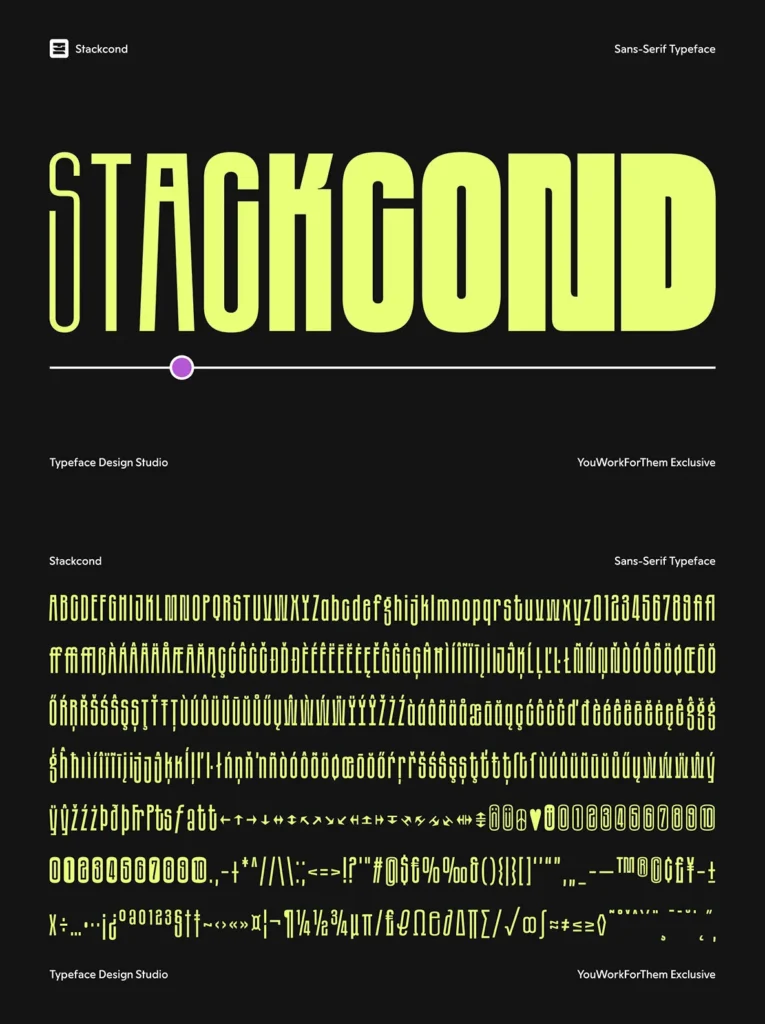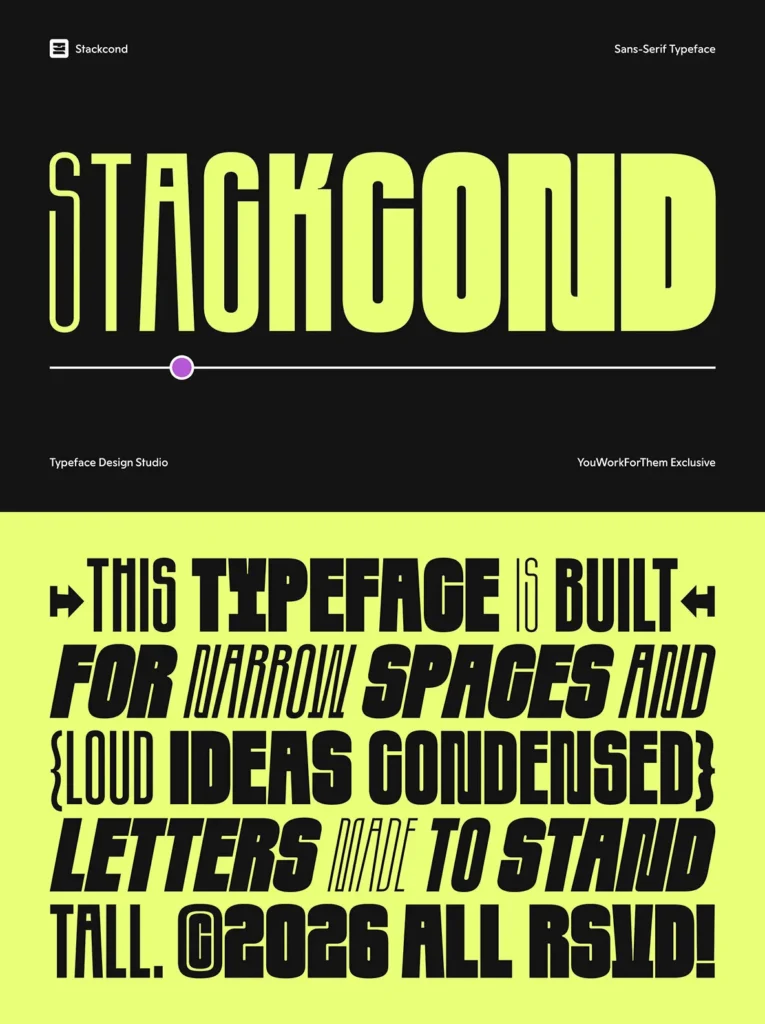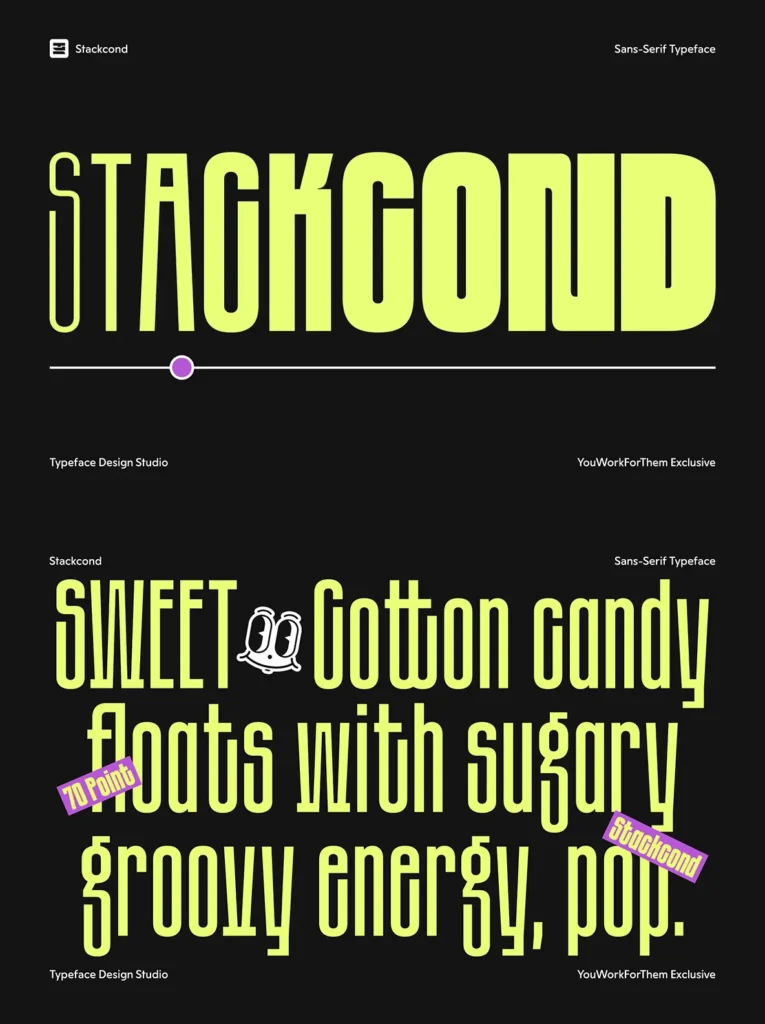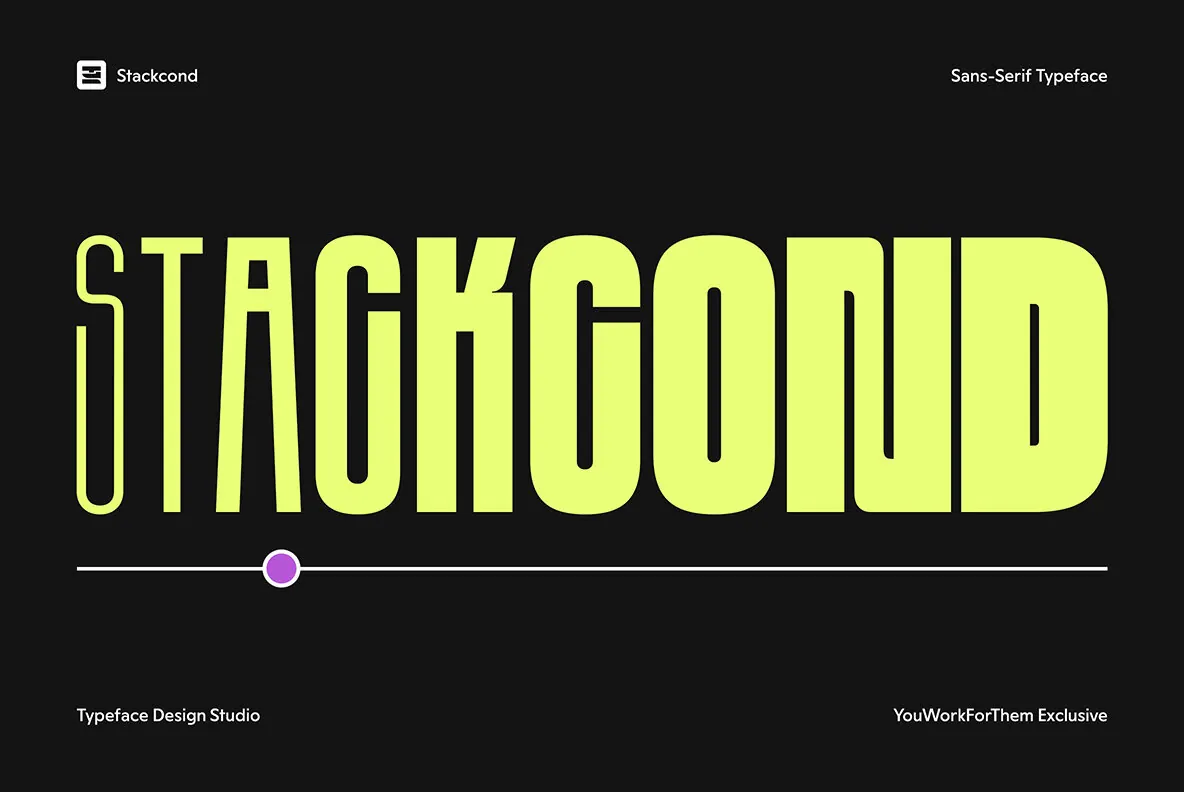
Stackcond: A Condensed Serif Tailored for Vertical Impact
Released exclusively for YouWorkForThem in 2026, Stackcond addresses the unique demands of vertical formats like 9×16 screens prevalent in motion graphics and social media content. Its 18 styles—comprised of nine uprights and nine corresponding slanted variations—offer extensive versatility. Each style includes over 440 glyphs, supporting a wide range of applications from bold, athletic headlines to delicate, fashion-forward typography.
Distinctive Features
Extreme verticality:
The typeface features unapologetically tall proportions with narrow counters and rapidly ascending stems that command attention without excess bulk.
Condensed but controlled forms:
Even at heavier weights, Stackcond maintains clear letter shapes, combining solidity with a purposeful athletic tone. The lighter weights shift to an editorial elegance suited for fashion and lifestyle contexts.
Modern sports and technology influence:
Heavier cuts project a competitive, performance-oriented energy well suited to sports branding, esports overlays, and technology product launches.
Unexpected flexibility in lighter weights:
Thin and light styles bring a sleek, runway-inspired feel, ideal for sophisticated editorial use when thoughtfully spaced.
Comprehensive glyph set:
This includes fractions, arrows, currency symbols, enclosed numerals, legal and scientific characters, and ligatures, making Stackcond suitable for rigorous production environments.
Purpose-Built for 9×16 Formats and Motion Design
Stackcond responds to the vertical orientation dominating modern marketing and social media channels.
Tall ascenders extend prominently within the frame.
Compressed widths ensure tight line arrangements.
Slanted styles introduce dynamic movement without distortion.
The design performs effectively over photography and video backdrops.
In motion graphics and kinetic typography, its narrow construction allows for large scaling without sacrificing key letterform details.
Recommended Applications
Sports branding and event graphics
Technology campaigns and product launches
Social media advertisements including TikTok overlays and YouTube thumbnails
Fashion lookbooks and editorial layouts
Retail promotions and poster designs
Bold web headers seeking vertical presence